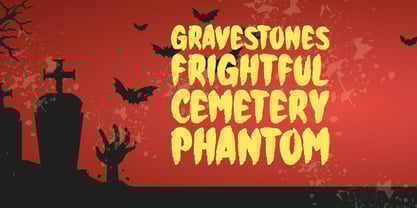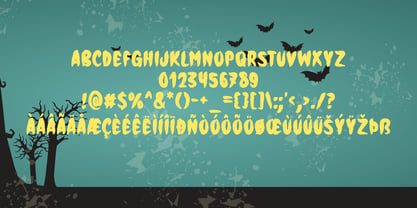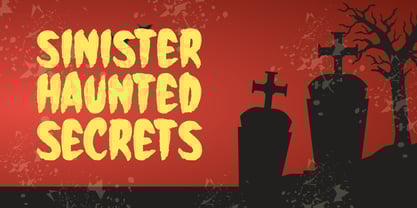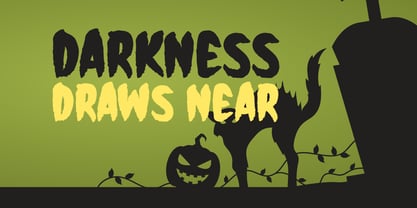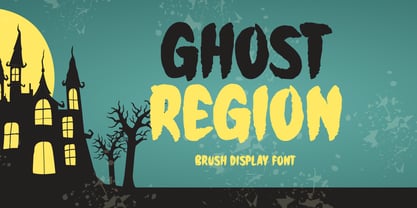
Ghost Region
by Seemly Fonts
The Ghost Region Font Family was designed by Md. Sohail Bhuiyan and published by Seemly Fonts. Ghost Region contains 1 styles. More about this family
Ghost Region is a striking display font crafted to grab attention and leave a strong impression. Its unique style makes it highly versatile, perfect for both digital and print applications such as logos, t-shirts, posters, flyers, album artwork, social media graphics, and website headers. With its bold character and distinctive flair, Ghost Region adds personality and impact to any creative project.
Designers: Md. Sohail Bhuiyan
Foundry: Seemly Fonts